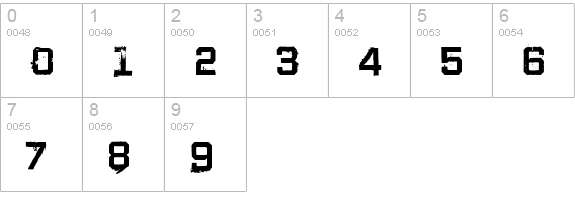
HouseMovements-Soiled Font Details
HouseMovements-Soiled font is a unique and edgy typeface designed for those looking to add a touch of grunge and character to their designs. The distressed and worn-out appearance of this font gives it a raw and authentic feel, perfect for projects that require a bit of urban flair. What sets HouseMovements-Soiled font apart is its versatility - it can be used for a wide range of design projects, from posters and flyers to album covers and social media graphics. Its bold and rugged look makes it stand out in any context, adding a touch of rebellion and attitude to your creations. Best of all, HouseMovements-Soiled font is available for free download at FontsMarket.com, making it accessible to anyone looking to spice up their designs without breaking the bank. So don't miss out on this opportunity to add a touch of grunge to your projects - download HouseMovements-Soiled font today and let your creativity run wild!